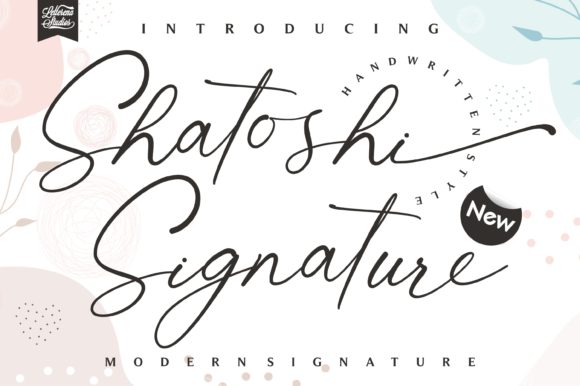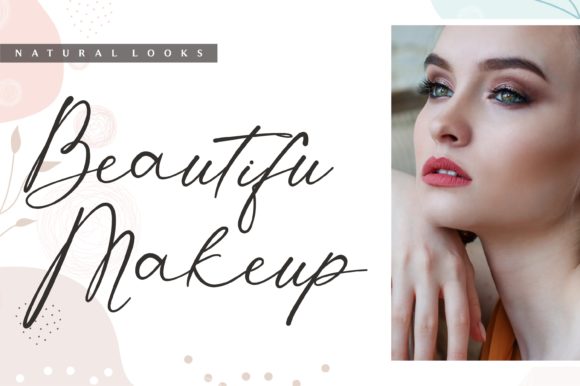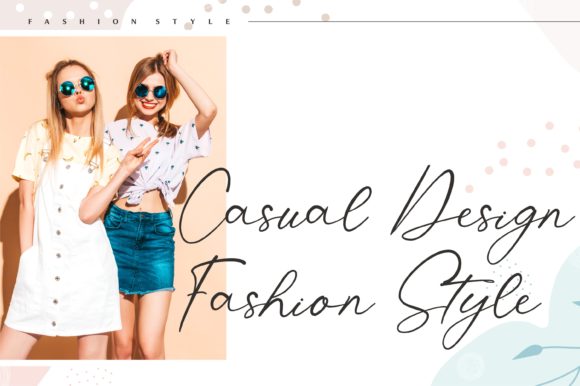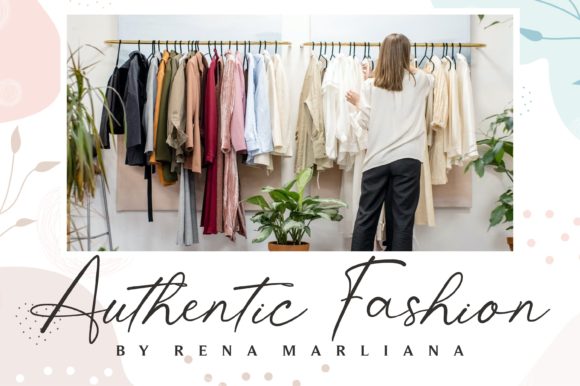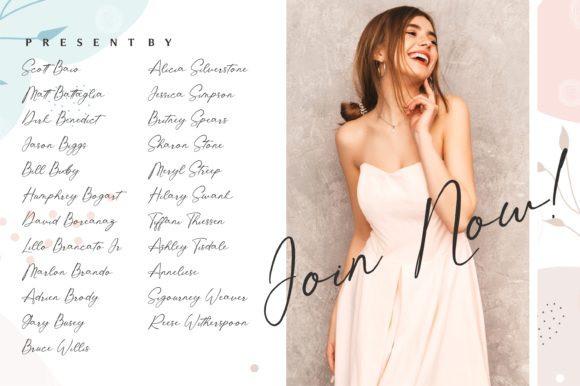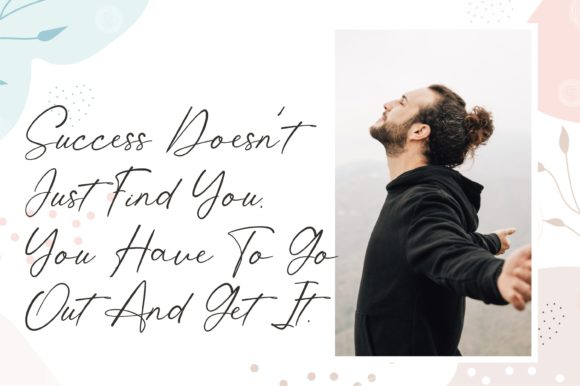
About Shatoshi Signature Font
Shatoshi Signature is a stylish and delicate handwritten font that exudes elegance and sophistication. Its clean, thin, and smooth vibe gives it a modern and contemporary feel, making it a perfect fit for a wide range of design projects.
When it comes to branding, Shatoshi Signature will add a touch of class and refinement to your business identity. Its unique and stylish appearance will help your brand stand out from the competition and create a lasting impression on your audience.
For product packaging, Shatoshi Signature can add a personal and artistic touch. Its delicate and stylish strokes will make your packaging designs look more elegant and appealing, elevating the overall presentation of your products.
Invitations designed with Shatoshi Signature will exude sophistication and charm. Whether it’s for weddings, special events, or corporate functions, this font will give your invitations a touch of class that sets the tone for the occasion.
Quotations, whether used on social media posts or in print materials, will appear more captivating and memorable with Shatoshi Signature. Its clean and smooth vibe makes it easy to read, while its stylish appearance adds a visual appeal that enhances the impact of the message.
T-shirts and apparel designs featuring Shatoshi Signature will be fashionable and trendy. Its elegant and delicate style will make your merchandise look more appealing to customers, attracting attention and creating a desirable brand image.
Labels and posters designed with Shatoshi Signature will have a refined and artistic look. The font’s clean and thin strokes make it versatile for various design styles, while its sophisticated appearance adds a touch of elegance to your creations.
Logos crafted with Shatoshi Signature will be unique and memorable. Its stylish and delicate flow will give your brand identity a distinctive and artistic touch, helping it stand out in the market.
In conclusion, Shatoshi Signature is a stylish and delicate handwritten font with a clean, thin, and smooth vibe. It is suitable for a wide range of design projects, including branding, product packaging, invitations, quotes, t-shirts, labels, posters, and logos. Its elegant and sophisticated style makes it a hit for any design that you want to add it to, giving your creations a touch of class and refinement that will elevate their overall appearance.